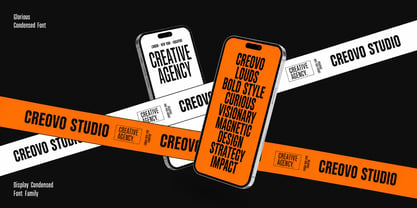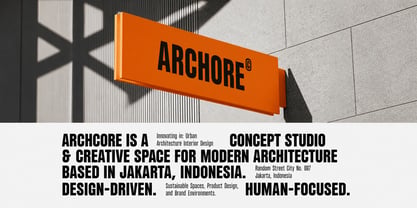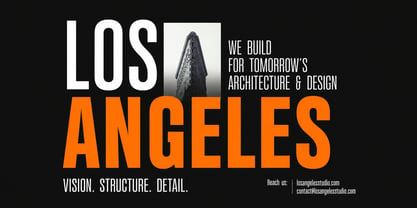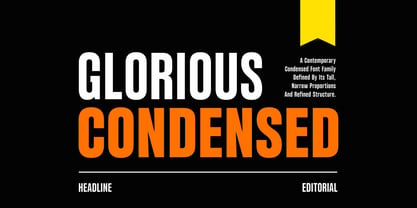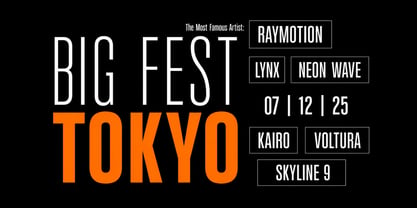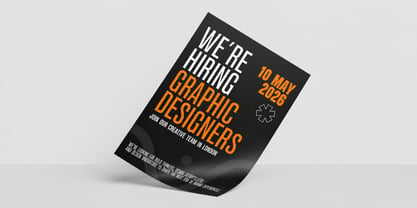
Glorious – Modern Condensed Font Family
Glorious is a contemporary condensed font family defined by its tall, narrow proportions and refined geometric structure. With sleek letterforms, balanced spacing, and a sophisticated visual character, this modern condensed typeface delivers both precision and impact. Its space-efficient design makes it especially effective for layouts where typography needs to remain clear and visually powerful within limited space.
Designed with versatility in mind, Glorious offers a complete range of weights from Thin to Black, giving designers the flexibility to create everything from elegant and subtle typography to bold and commanding headlines. Each weight is carefully constructed with adjusted letterforms and spacing to maintain consistent readability and visual rhythm throughout the family.
The clean geometry and disciplined structure of Glorious create a commanding presence without feeling overwhelming. Its refined curves, sharp details, and streamlined proportions give the font a modern aesthetic that works beautifully across branding, editorial design, advertising, sports campaigns, posters, and digital interfaces.
Glorious is particularly effective for headlines, titles, magazine covers, posters, banners, signage, and branding systems where strong visual communication is essential. Its condensed proportions allow more content to fit into smaller areas while maintaining a polished and professional appearance.
The versatility of Glorious extends across both digital and print environments. From website headers and UI layouts to editorial compositions and promotional graphics, this condensed font family provides a cohesive typographic foundation for modern design systems.
With extensive multilingual support, numerals, punctuation, and carefully balanced letterforms, Glorious is designed to support a wide range of creative and international design applications.
Key Features of Glorious Font
Modern Condensed Style
A tall and narrow typeface designed to maximize space while maintaining a sophisticated visual appearance.
Complete Weight Range
Includes multiple weights from Thin to Black for flexible typographic hierarchy and visual expression.
Tall & Refined Letterforms
Elegant proportions and clean geometric construction create a distinctive contemporary character.
Space-Saving Typography
Condensed proportions allow more text to fit into limited layouts without compromising visual clarity.
Strong Display Character
Perfect for headlines, titles, posters, banners, magazine covers, and large-scale typography.
Multilingual Support
Includes extended glyph support for a wide range of international design projects.
Perfect For
Glorious condensed font works beautifully for:
• Branding & Visual Identity
• Logo & Wordmark Design
• Editorial & Magazine Layouts
• Magazine Covers
• Posters & Advertising
• Sports Campaigns & Graphics
• Website Headers
• UI/UX Design
• Signage & Wayfinding
• Packaging & Product Labels
• Social Media Graphics
• Event Promotions
• Headlines & Titles
• Banners & Large Display Typography
• Digital & Print Projects
Multilingual Support
Glorious includes multilingual support for:
Afrikaans, Danish, Dutch, English, Estonian, Filipino, Finnish, French, Friulian, Galician, German, Gusii, Indonesian, Irish, Italian, Luxembourgish, Norwegian Bokmål, Norwegian Nynorsk, Nyankole, Oromo, Portuguese, Romansh, Rombo, Spanish, Swedish, Swiss-German, Uzbek (Latin), Scottish, Swiss, and more.
Why Choose Glorious?
Glorious is a sophisticated modern condensed font family that combines elegant proportions, strong typography, and efficient use of space. Its extensive weight range allows designers to create clear typographic hierarchies while maintaining a consistent and professional visual identity.
Whether you're creating logos, branding systems, magazine covers, posters, sports graphics, websites, advertising campaigns, signage, packaging, or editorial layouts, Glorious delivers clean, powerful, and contemporary typography.